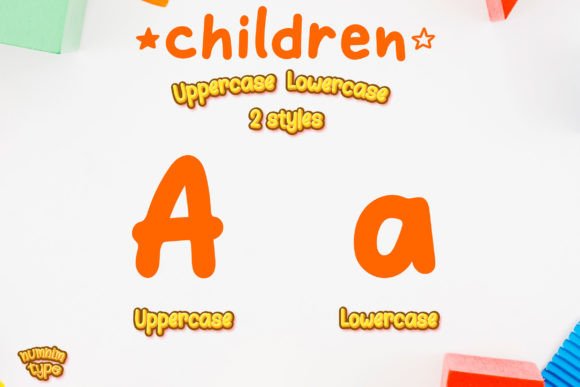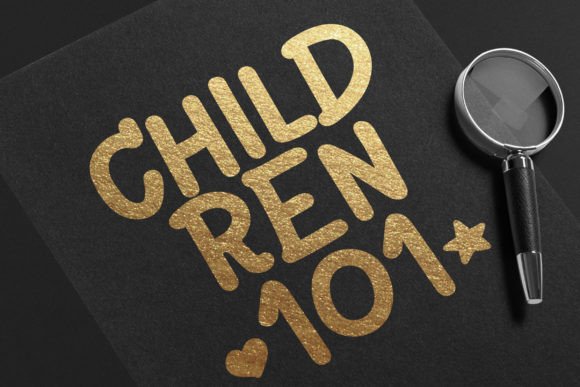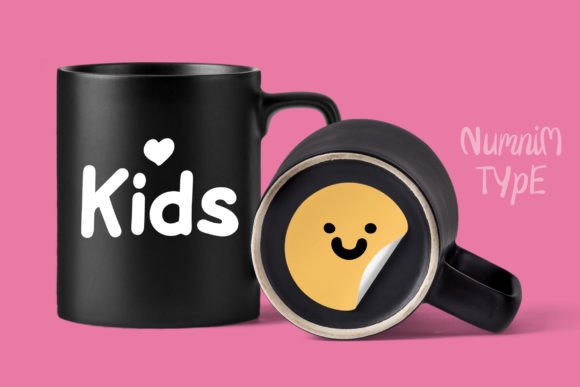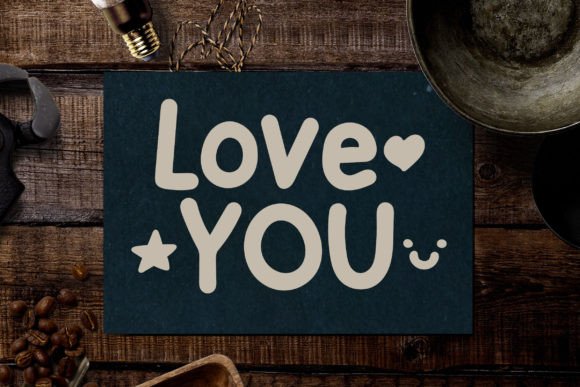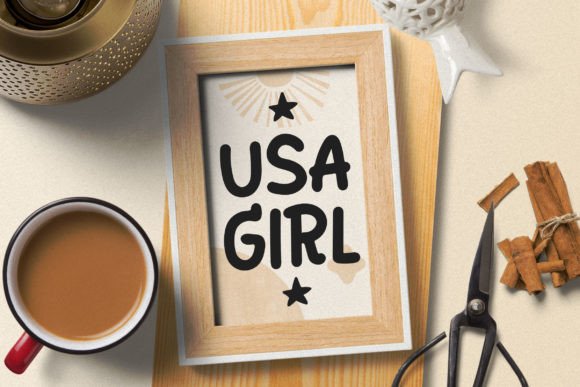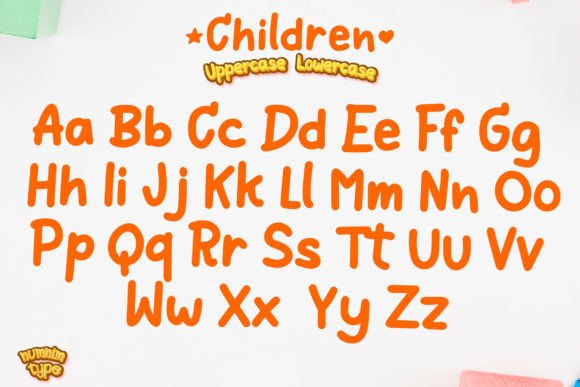
Introducing Children Font: The Ultimate Choice for Fun and Playful Designs
Are you a designer or crafter looking for a font that can add a touch of whimsy and fun to your projects? Look no further than Children Font, a cute and uniquely crafted handwritten font that’s perfect for a wide range of applications. From stickers and mugs to t-shirts, ornaments, and summer event cards, this font is sure to bring a smile to anyone’s face.
What Makes Children Font So Special?
Children Font is a one-of-a-kind handwritten font that’s been carefully designed to bring a sense of playfulness and joy to your designs. Its fun and playful characters are sure to capture the attention of your audience and leave a lasting impression. Whether you’re creating a design for a children’s party, a summer event, or just something fun and creative, this font is the perfect choice.
Key Features of Children Font
- Cute and Unique Design: Children Font has a distinctive and adorable design that’s sure to stand out from the crowd.
- Fun and Playful Characters: The font features a wide range of fun and playful characters that are perfect for creating engaging and interactive designs.
Use Cases for Children Font
Children Font is an incredibly versatile font that can be used for a wide range of projects, including:
- Stickers: Create fun and colorful stickers for kids’ parties, events, or just for fun.
- Mugs: Design personalized mugs with cute and playful sayings or characters.
- T-Shirts: Create custom t-shirts for kids or adults with fun and quirky designs.
- Ornaments: Design personalized ornaments for special occasions, such as Christmas or Easter.
- Summer Event Cards: Create fun and colorful cards for summer events, such as birthday parties or BBQs.
Tips for Using Children Font
Here are a few tips for getting the most out of Children Font:
- Experiment with Different Colors: Children Font looks great in a variety of colors, so don’t be afraid to experiment and find the perfect combination for your design.
- Mix and Match Characters: The font features a wide range of characters, so try mixing and matching them to create unique and interesting designs.